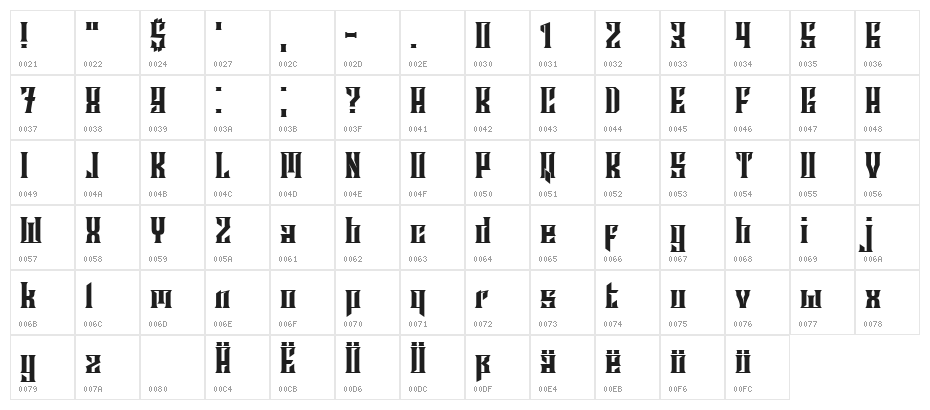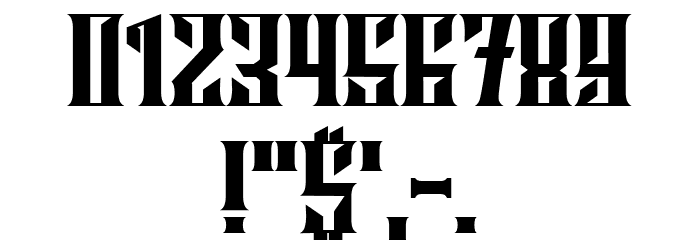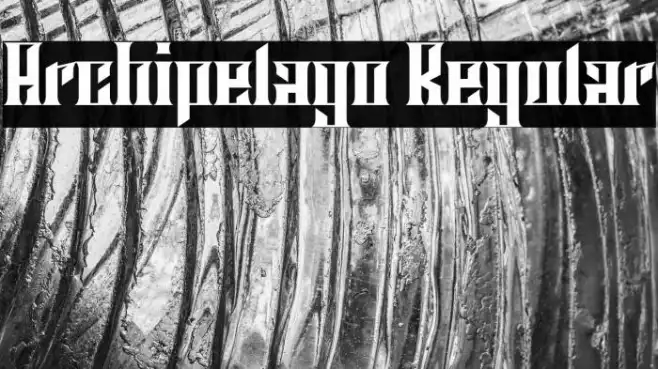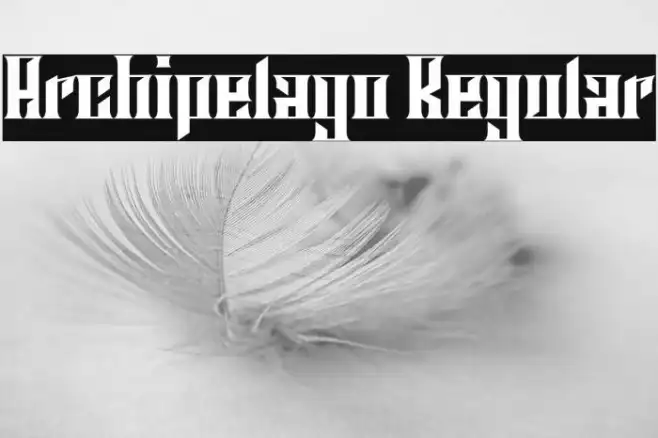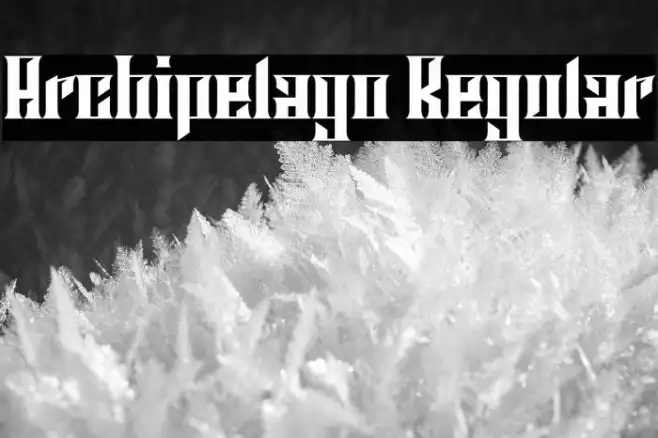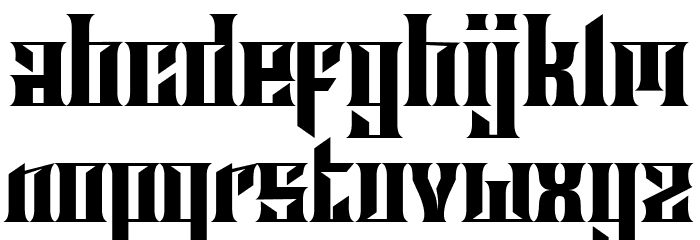
Archipelago Regular Font
Archipelago Regular Description
This font features a bold and striking design with a distinct blackletter style. The characters are sharply angular, with strong vertical lines and pointed serifs that give it a dramatic and authoritative presence. The uppercase letters are particularly ornate, while the lowercase letters maintain a consistent style that complements the overall aesthetic. The numerals and special characters are designed to match the boldness and intricacy of the alphabet, making it suitable for impactful and decorative uses. The font's unique style is reminiscent of traditional Gothic scripts, yet it maintains a modern edge that can be used in contemporary designs.